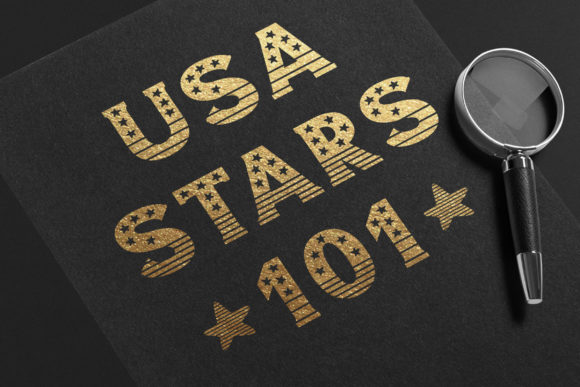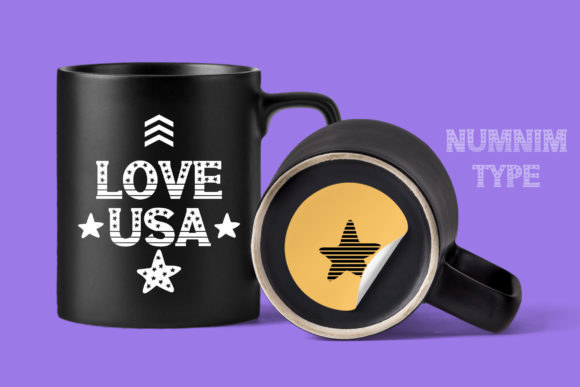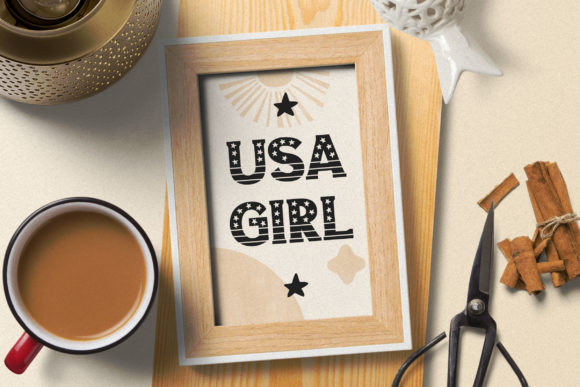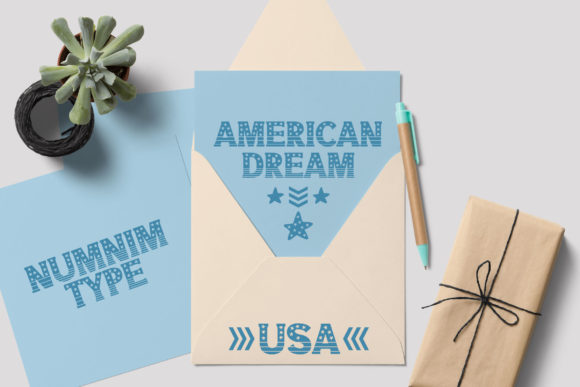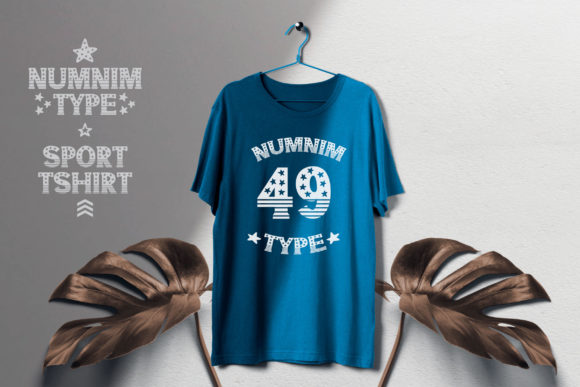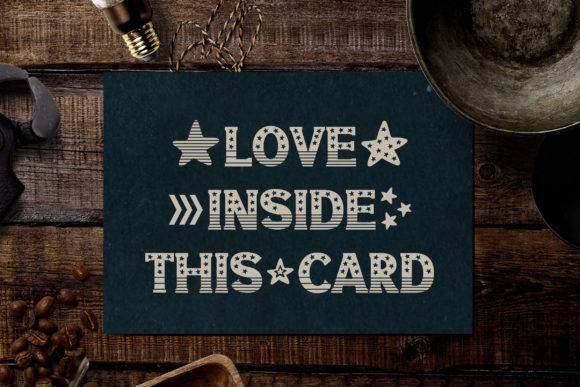
Unleashing the Spirit of America: A Font that Embodies the Nation’s Vibrancy
Have you ever found yourself in the midst of a creative frenzy, surrounded by scraps of paper, paint swatches, and half-finished projects? You know, that moment when the perfect font can make all the difference between a good design and a great one. For me, that moment came when I stumbled upon the America Font – a cool, bold, and festive display font that exudes the very essence of American spirit.
Designed to add a touch of patriotism and playfulness to your crafty ideas, America Font is perfect for letterheads, titles, and stationery. Its unique look will make your designs stand out and leave a lasting impression. As a designer, you know the value of having a versatile font at your disposal, and America Font is no exception. Whether you’re working on a project that requires a bold statement or a subtle nod to American culture, this font has got you covered.
- Unique Characteristic: The America Font features a unique blend of modern and classic design elements, making it an ideal choice for creating a sophisticated and elegant visual identity.
Designer Review: America Font
Overall, I think the America Font has a lot of potential, but it’s not without its limitations. Let’s start with what works well:
- ✨ The font’s nostalgic feel is quite endearing. It reminds me of classic American diners and roadside signs.
- ✨ The bold weight is perfect for headlines and titles, giving them a sense of grandeur and importance.
- ✨ The font’s versatility makes it suitable for a wide range of projects, from advertising to editorial design.
- ⚠️ The font’s readability can be a bit of a concern, especially at smaller sizes. Some letters can be easily confused with one another.
- ⚠️ The font’s kerning can be a bit off at times, which can affect the overall aesthetic of your design.
- ⚠️ The font’s range of weights is limited, which can make it difficult to create a cohesive look across different elements of your design.
Overall, I think the America Font is a solid choice for designers looking for a classic, nostalgic feel. While it’s not perfect, its strengths make up for its weaknesses. With a bit of tweaking and adjustment, I think this font can be a real showstopper.
For a more authentic look, pair the America Font with a vintage-inspired background or design elements.
For a distressed look, apply a texture or filter to the text in Photoshop, or use the “Live Trace” feature in Illustrator to create a custom outline.
The America Font is perfect for:
- Creating a vintage-inspired design
- Adding a touch of nostalgia to your branding
- Designing a retro-style poster or flyer